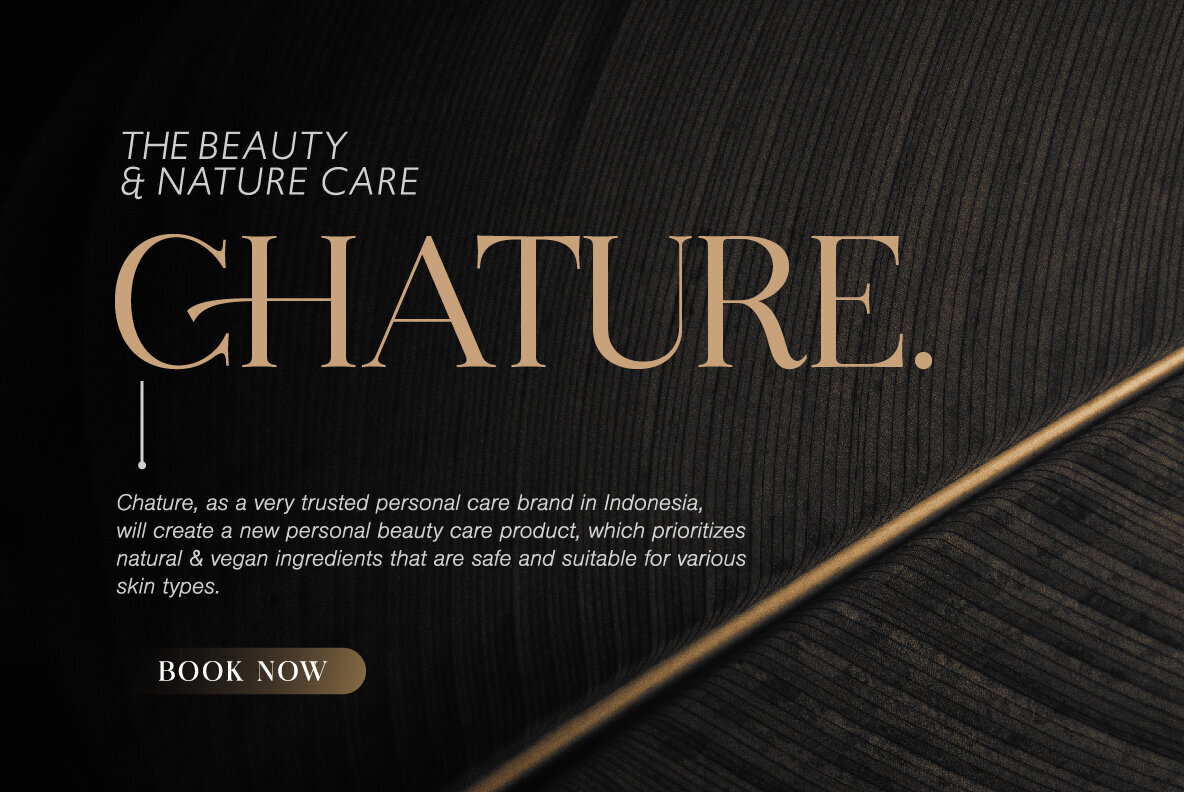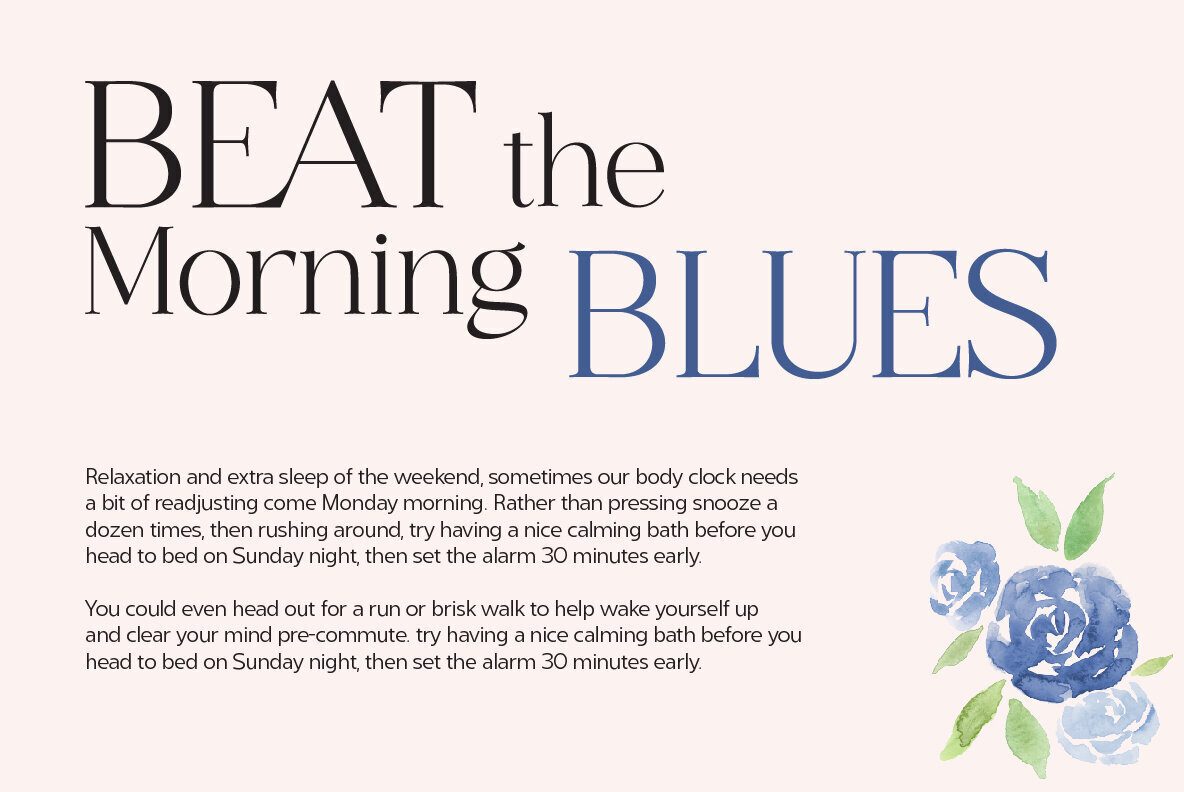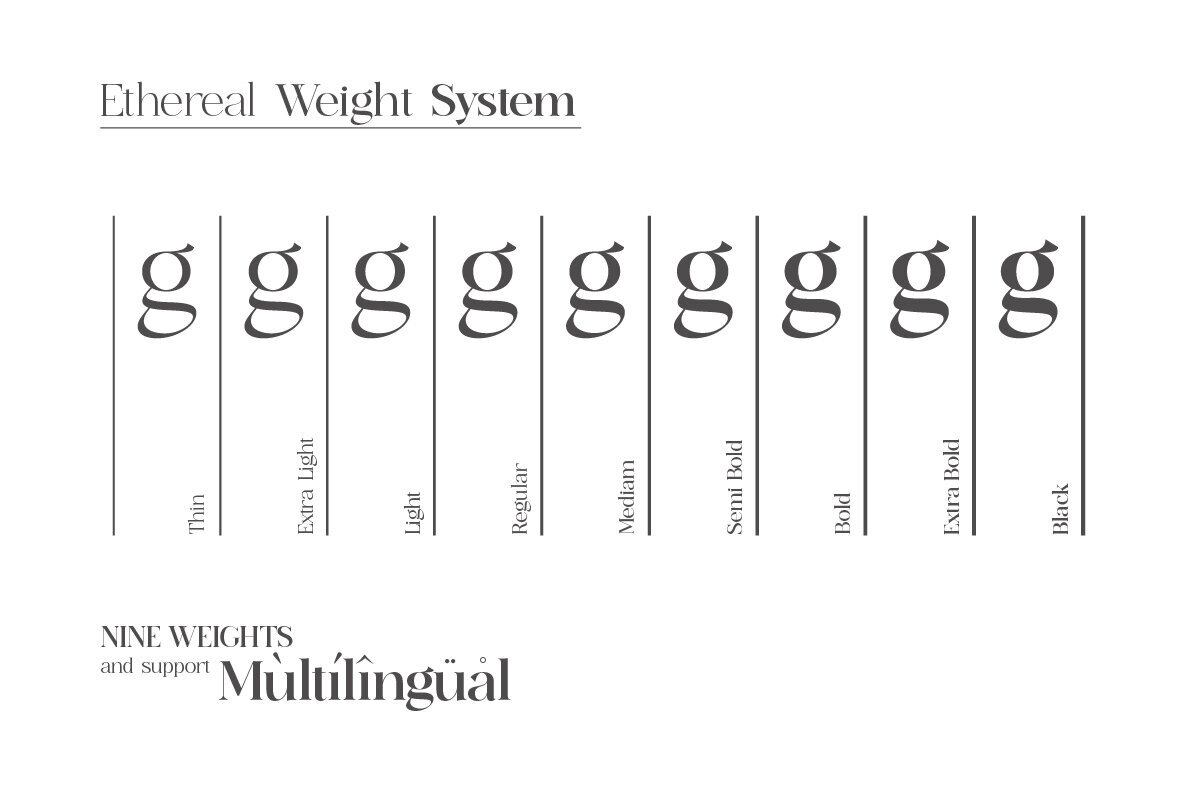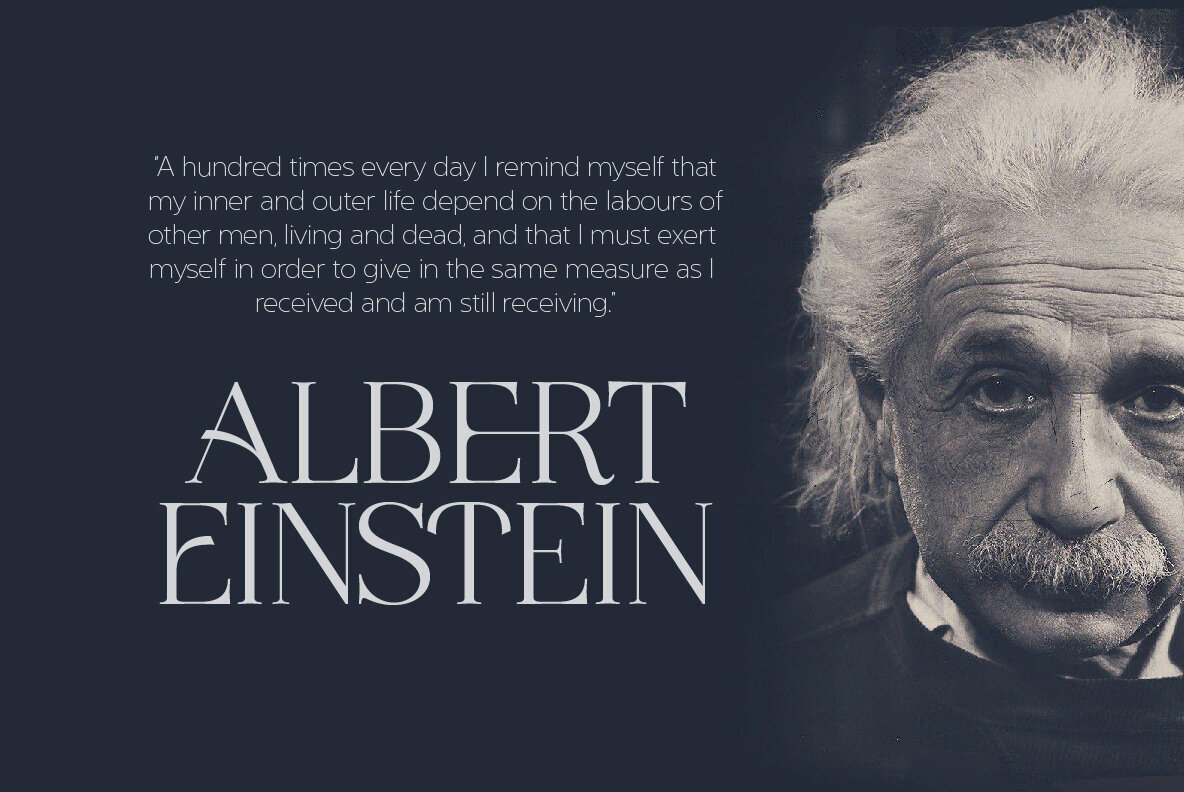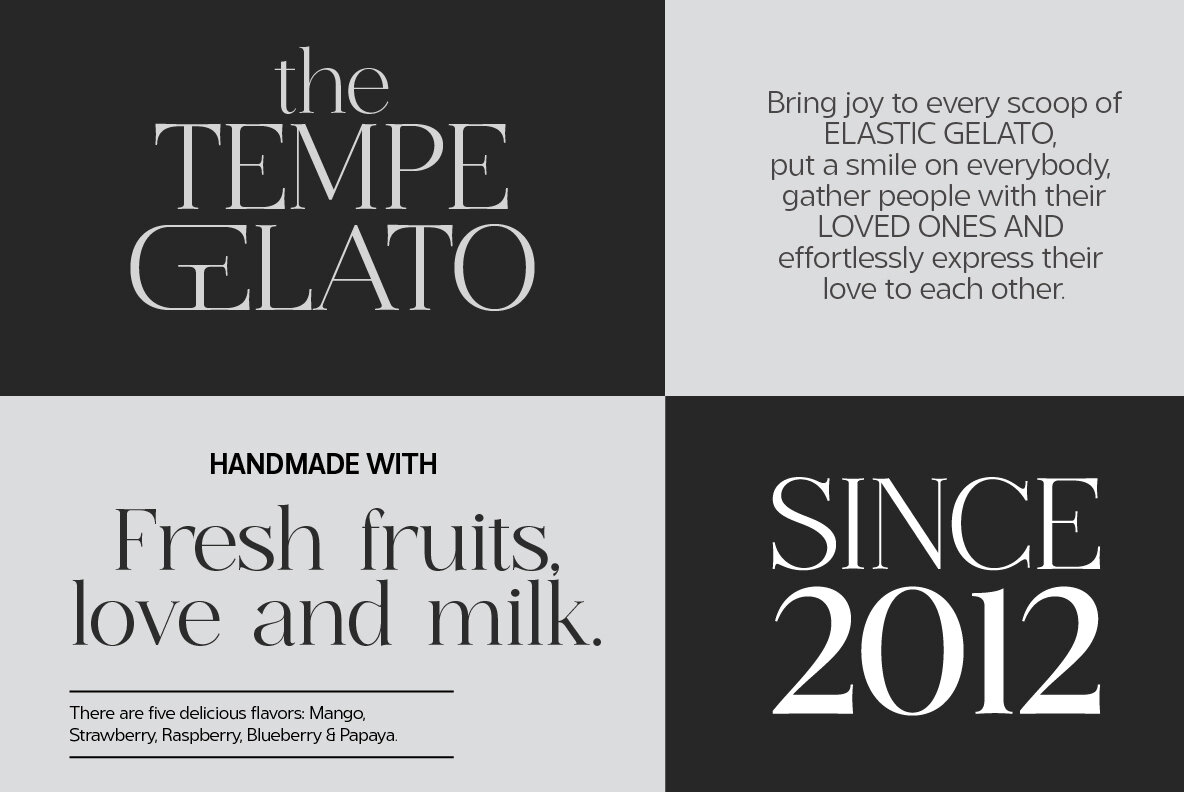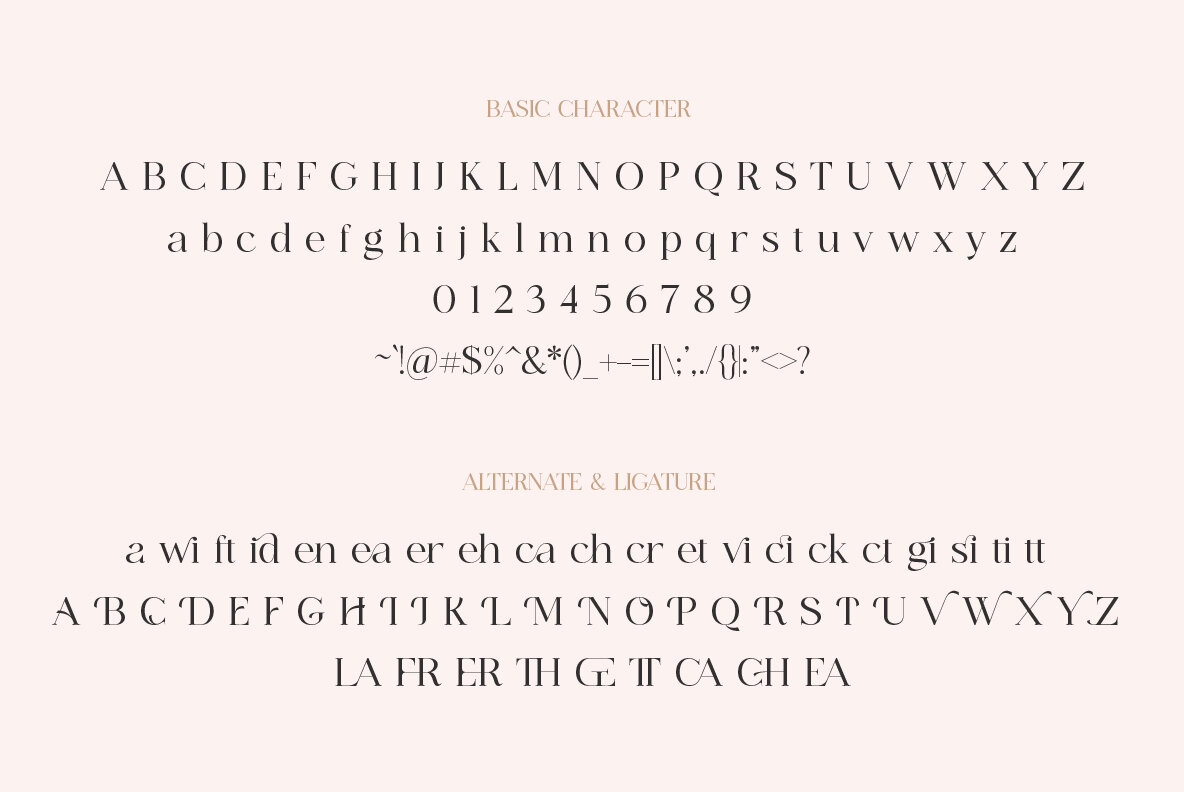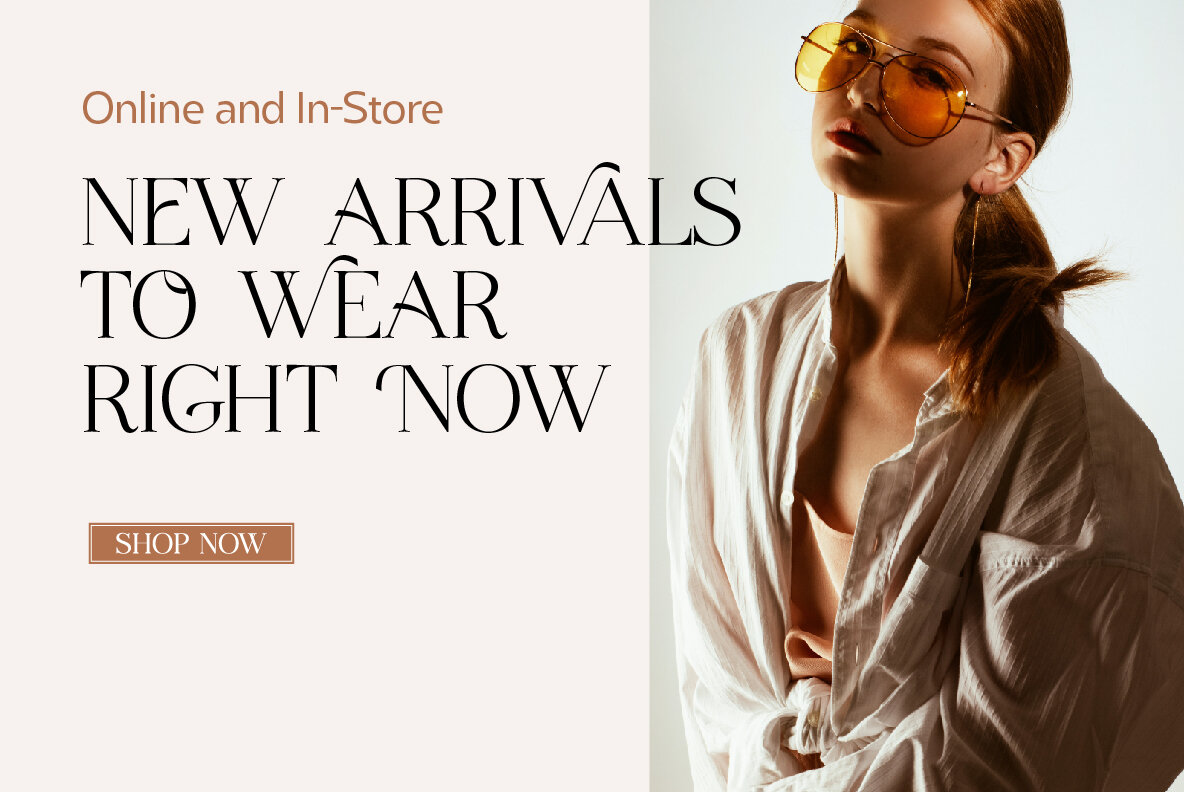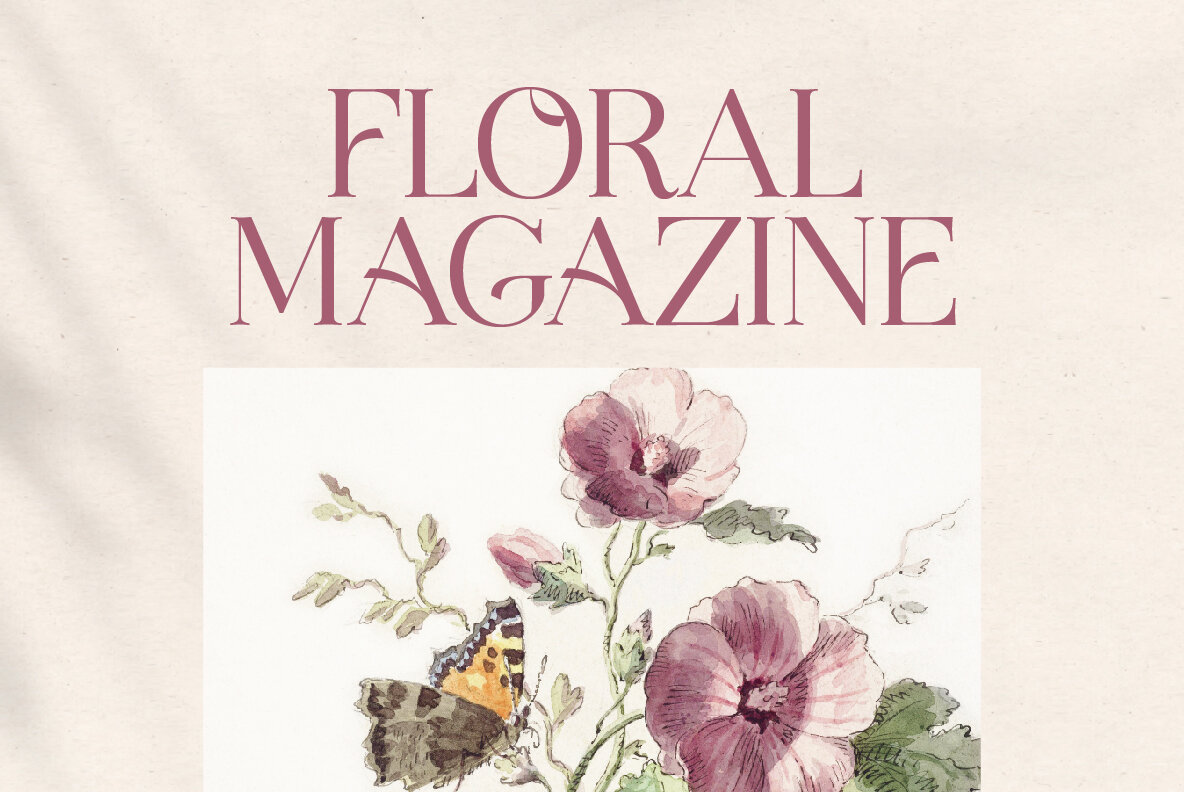
Ethereal Font
Ethereal is a serif font family that embodies a blend of fashion-forward and contemporary refinement. Offered in nine different weights, it reveals a suave and alluring elegance equipped to infuse projects with a sophisticated edge. With its sophisticated design complemented by subtle stylistic extras, Ethereal stands out as more than just a typeface—it is a declaration of modern sophistication. The latest update, version 1.20, enhances Ethereal's usability with updates such as Unicode Ranges and Vertical Metrics, True Type Hinting, and additional multilingual characters. Elegant yet modern, Ethereal is a serif family that gracefully combines tradition and modernity.Ethereal: A Taste of Modern Serif Elegance
Exquisite Features